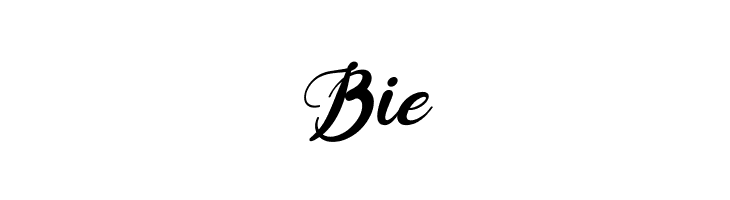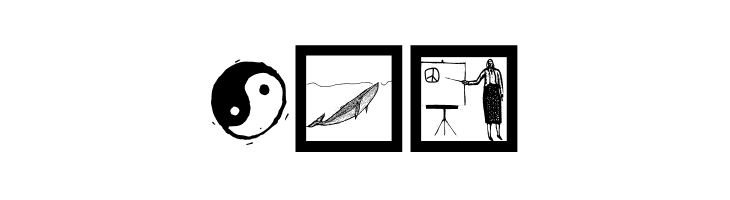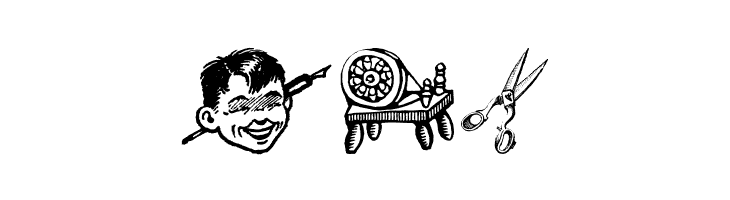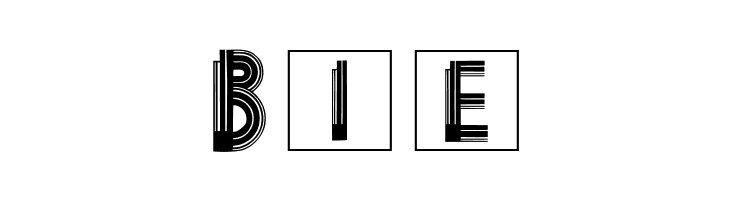
A dynamic, slanted font with a futuristic and geometric style.
A modern, semi-italic font with a bold, geometric style.
A geometric, futuristic font with straight lines and angular shapes.
A dynamic, modern italic font with a sleek, angular design.
A bold, outlined font with a retro, disco-inspired design.
An illustrative font with ancient Egyptian motifs replacing standard characters.
A retro font with letters inside floppy disk shapes, perfect for vintage tech themes.
A playful, circular font with geometric shapes and consistent line weight.
A playful, circular font with thin white lines on bold black backgrounds.
A playful, hand-drawn font with characters enclosed in circles, perfect for fun and creative projects.
A playful, circular font with modern, artistic character designs.
A decorative font with abstract, whimsical face designs in circular shapes.
A bold, playful font with a cartoonish, three-dimensional style.
A digital, segmented font inspired by classic LED displays.
A bold, modern font with clean lines and a strong presence.
A modern, geometric sans-serif font with a clean and professional look.
A playful, handwritten font with smooth, flowing lines and a casual style.
A lively, handwritten script font with medium contrast and fluid strokes.
A bold, distressed font with a grunge, textured style.
A modern, geometric sans-serif font with consistent stroke width and clear readability.
A bold, playful font with a cartoonish, three-dimensional style.
A bold, hand-drawn font with an expressive and dynamic style.
A bold, playful font with dynamic strokes and whimsical curves.
A playful, dotted font with a whimsical, hand-drawn style.
A playful, star-embellished font with a hand-drawn feel.
A playful, whimsical font with bold outlines and handwritten script elements.
A playful, casual handwritten font with irregular strokes.
A playful, casual handwritten font with fluid strokes and a dynamic style.
A playful, handwritten font with a youthful and energetic vibe.
A playful, casual handwritten font with lively, irregular strokes.
A playful, handwritten font with bold strokes and a casual, whimsical style.
A playful, whimsical handwritten font with loose, flowing strokes.